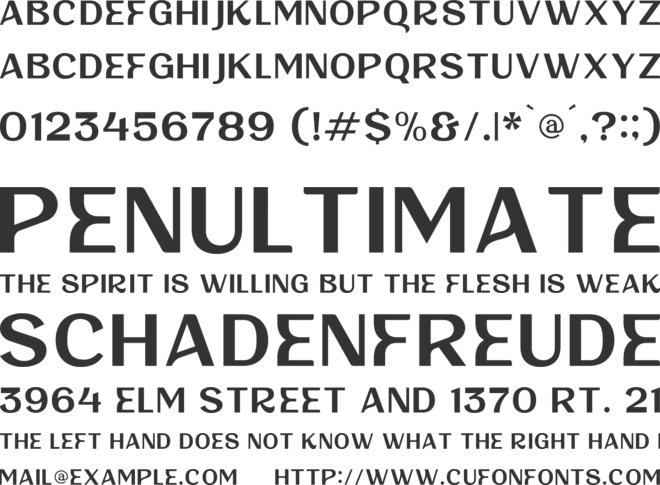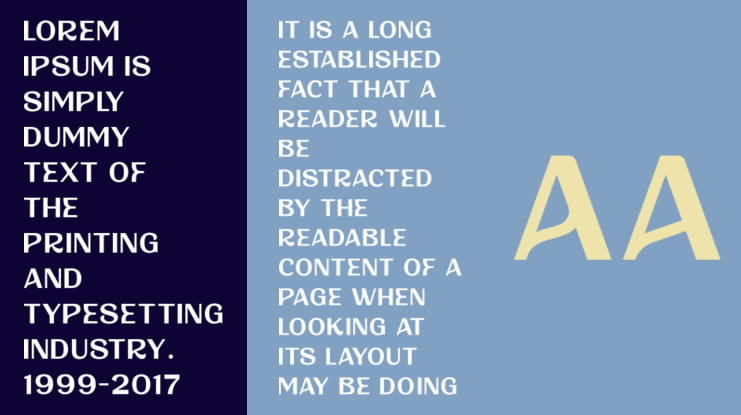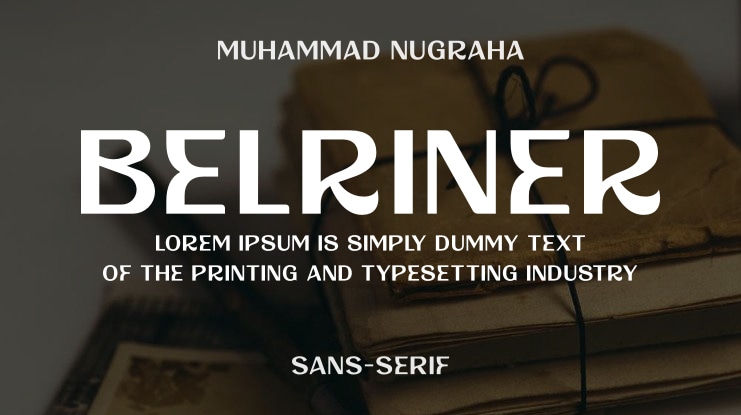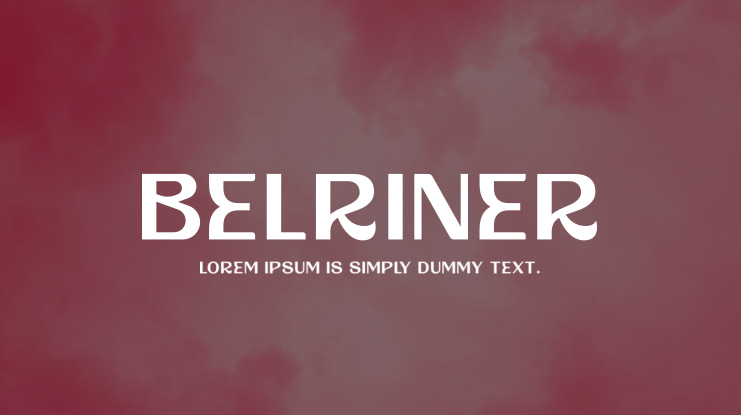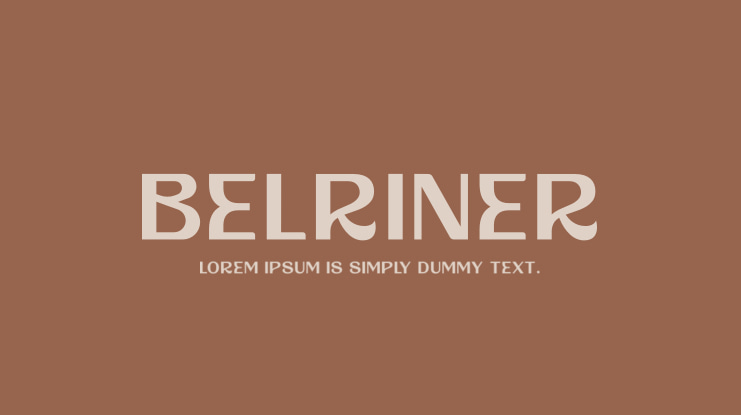
Belriner | Modern San Serif Typeface is ideal for various projects including logos, branding, homeware designs, product packaging, mugs, quotes, posters, shopping bags, t-shirts, book covers, name cards, invitations, greeting cards, labels, photography, watermarks, special events, and more, adding a touch of elegance to your designs.